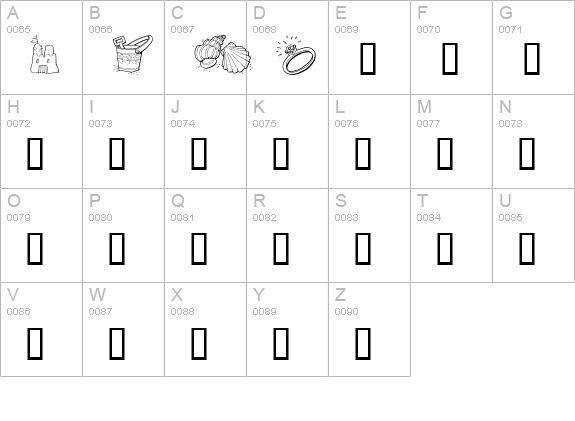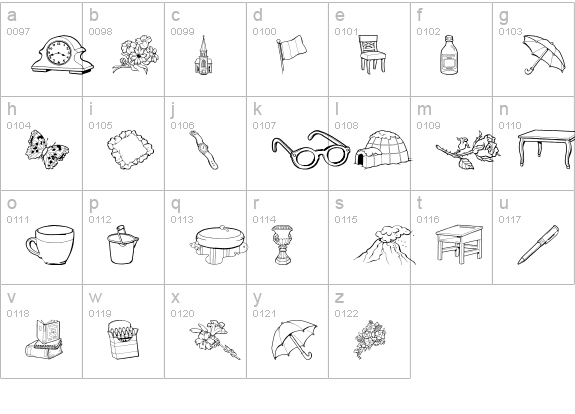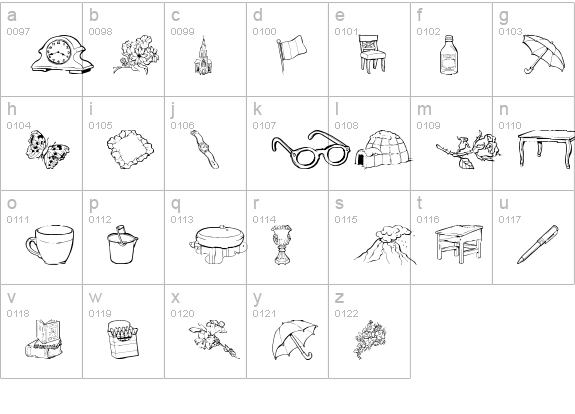
GE Grab Bag I Font Details
Introducing GE Grab Bag I font, a versatile and eye-catching typeface that is sure to make your designs stand out! This unique font features a playful and artistic style, perfect for adding a touch of whimsy to any project. With its charming letterforms and quirky details, GE Grab Bag I font is ideal for a variety of design applications, from branding to packaging to social media graphics. What sets GE Grab Bag I font apart is its delightful assortment of characters, each with its own distinct personality. Whether you're looking for a bold headline font or a fun display typeface, this font has you covered. The wide range of glyphs and ligatures make it easy to create dynamic and engaging designs that will captivate your audience. Best of all, GE Grab Bag I font is completely free to download at FontsMarket.com! This means you can access this fantastic font without breaking the bank, making it a valuable addition to your design toolkit. Don't miss out on the opportunity to elevate your projects with the charm and creativity of GE Grab Bag I font. Download it today and let your imagination run wild!